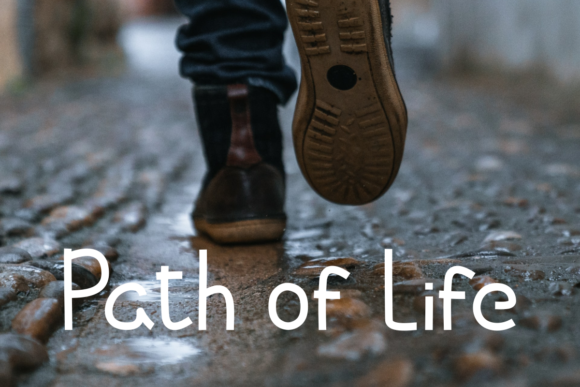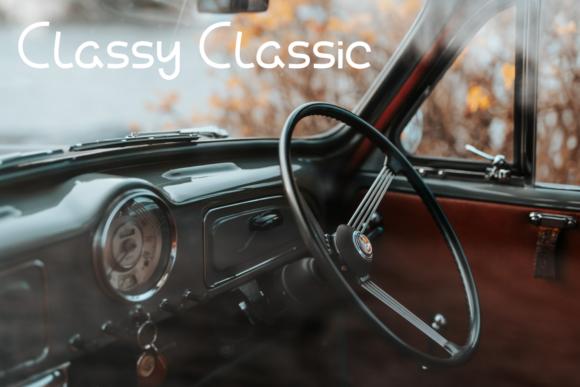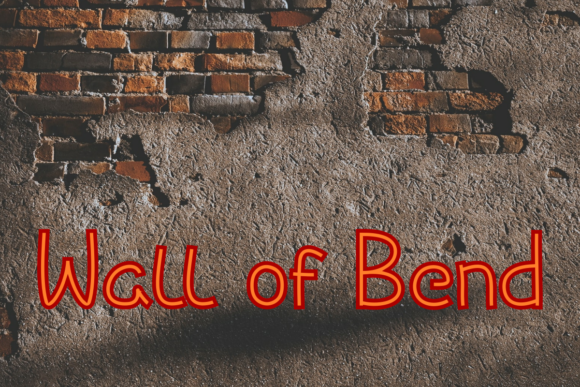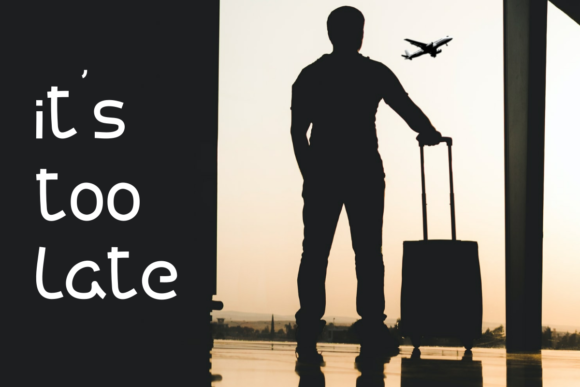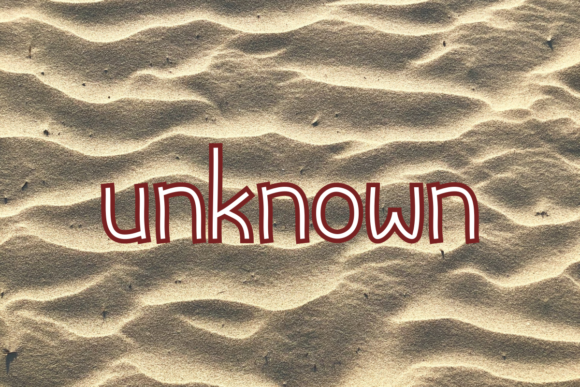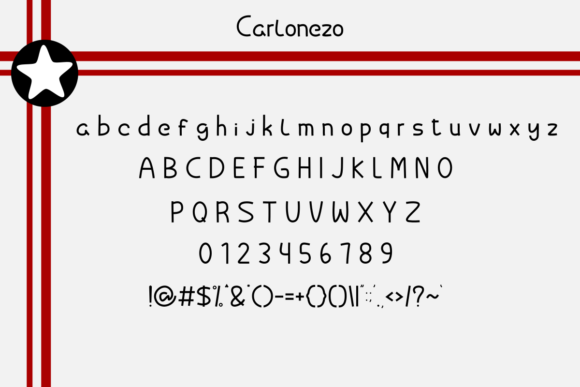
Carlonezo Font
About Carlonezo Font
Carlonezo is a clean and simple lettered handwritten font that can be used for a variety of designs. Its authentic look will add a personal and realistic feel to your projects.